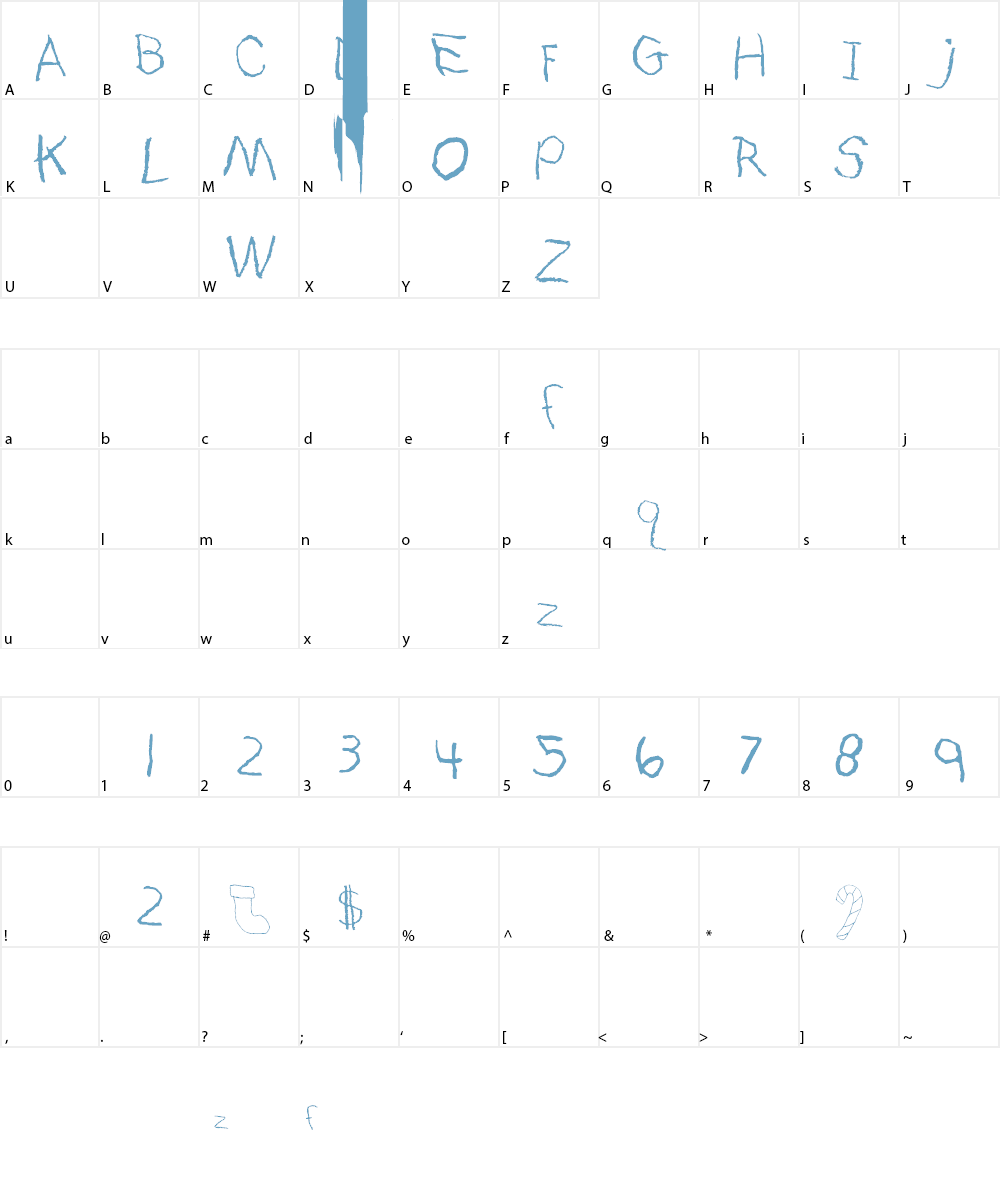
I hope you will enjoy this as it was intended, a font of a 3rd grader's hand written letter to Santa, including the great little drawings to entice more presents. Please check the character map to see the variations to substitute a stocking ding for the "L", "T", the candy cane for the "J", etc.
The zero is the ornament, and the capital O can be used for a zero instead. And of course only the punctuation an 8 year old might use.
(No third graders were harmed in any way during the making of this font)